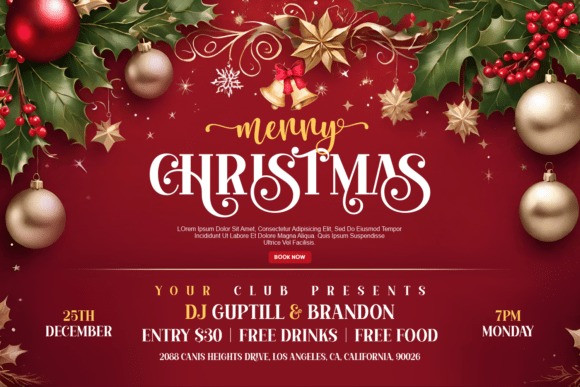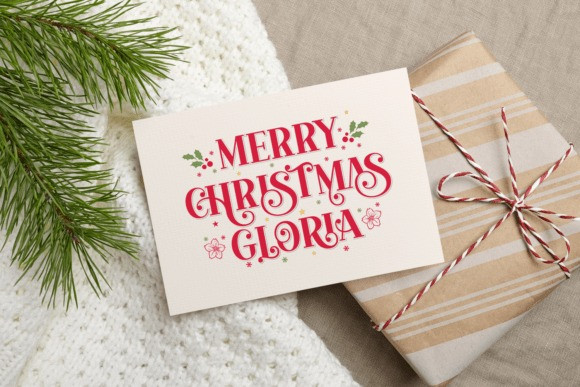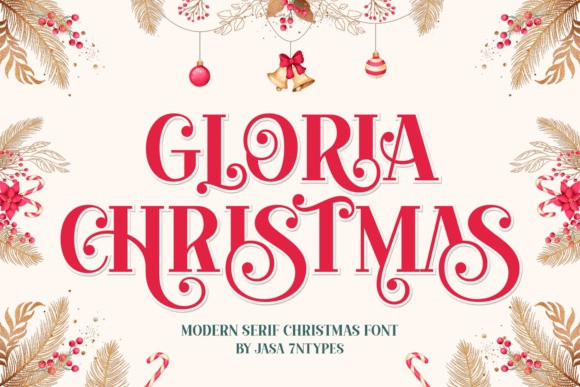
Gloria Christmas Font
Gloria Christmas Font is a stunning, heavily stylized modern serif font, perfectly engineered to infuse your holiday graphics with a sense of grandeur, festive charm, and ornate flair.
The unique character of the Gloria Christmas typeface lies in its wonderfully exaggerated swashes and ligatures that transform every word into a festive centerpiece, ideal for large signs, banners, and bold titles. This eye-catching display serif is built for impact, featuring striking red lettering and beautiful decorative glyphs that instantly signal the holidays.
The Gloria Christmas font is versatile for both print and digital work, ensuring your Christmas greetings, advertising, and packaging possess an unmistakable, sophisticated seasonal vibe. This celebratory type is essential for any designer focusing on high-impact holiday visuals.